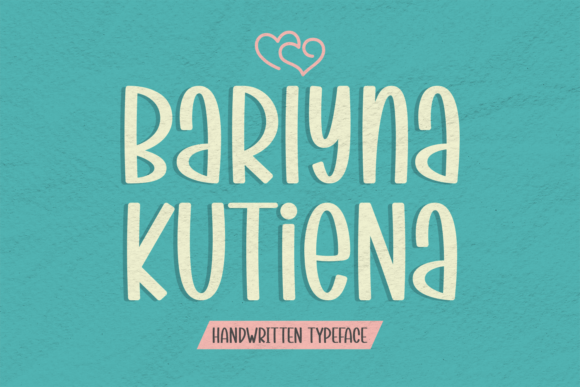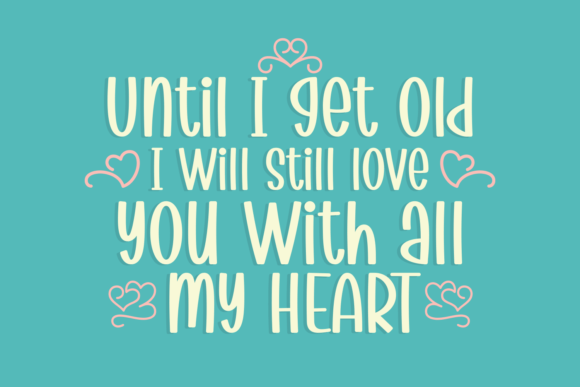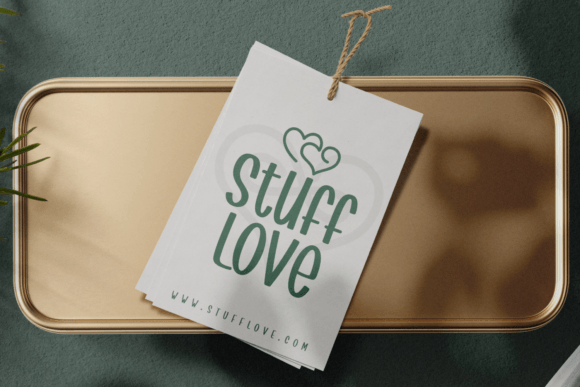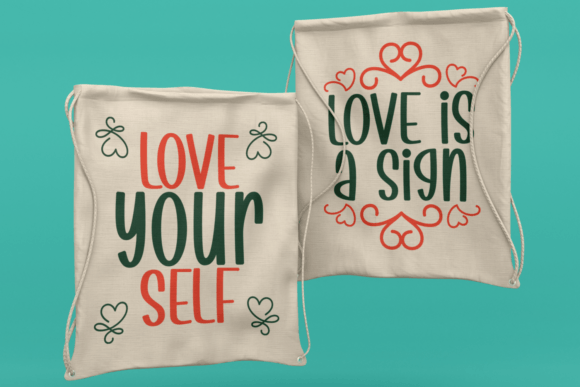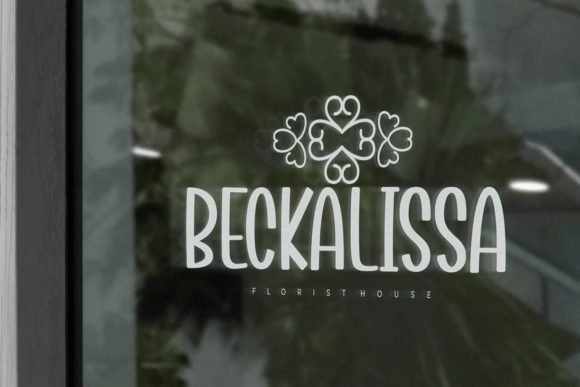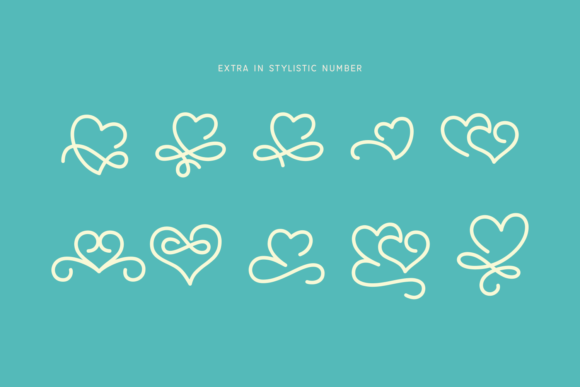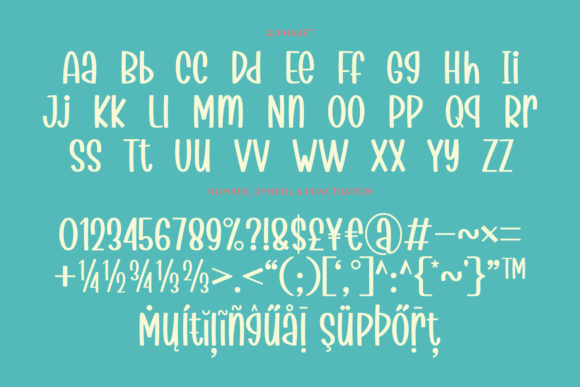
Barlyna Kutiena Font
About Barlyna Kutiena Font
“Barlyna Kutiena” is a cute and charming handwritten font that brings a delightful and endearing quality to your design projects. This font’s versatility, adaptable appearance, and the inclusion of extra heart glyphs make it suitable for a wide range of creative endeavors. If you’re looking to add a romantic touch to your designs, “Barlyna Kutiena” is the perfect choice to infuse a sense of charm and love.
The appeal of “Barlyna Kutiena” lies in its ability to convey a sense of cuteness and charm through its handwritten characters. The font’s letters possess a playful and adorable quality, which adds character and warmth to your designs. “Barlyna Kutiena” is a font that effortlessly enhances the emotional connection with your audience, making your designs feel heartfelt and affectionate.
One of the standout features of “Barlyna Kutiena” is its PUA encoding, which provides easy access to all the glyphs, including the extra heart glyphs. This feature allows you to explore and experiment with various design elements, giving you the flexibility to customize your compositions and create unique and heartwarming typography.
The adaptability of “Barlyna Kutiena” ensures that it can be effectively used for a wide spectrum of applications. Whether you’re designing greeting cards that convey love and affection, creating branding materials with a touch of sweetness, infusing your quotes with romanticism, embellishing your creative ideas with charming details, or exploring any other design project that demands cuteness and charm, “Barlyna Kutiena” is your go-to font.
Incorporating “Barlyna Kutiena” into your design projects will likely result in outcomes that are not only cute and charming but also full of affection and romance. Its playful characters and adorable form make it an excellent choice for creating designs that resonate with warmth and endearment. Embrace the cuteness and charm of “Barlyna Kutiena” in your next project, and watch as it enhances the emotional impact of your typography and overall design, making them truly heartwarming and unforgettable.